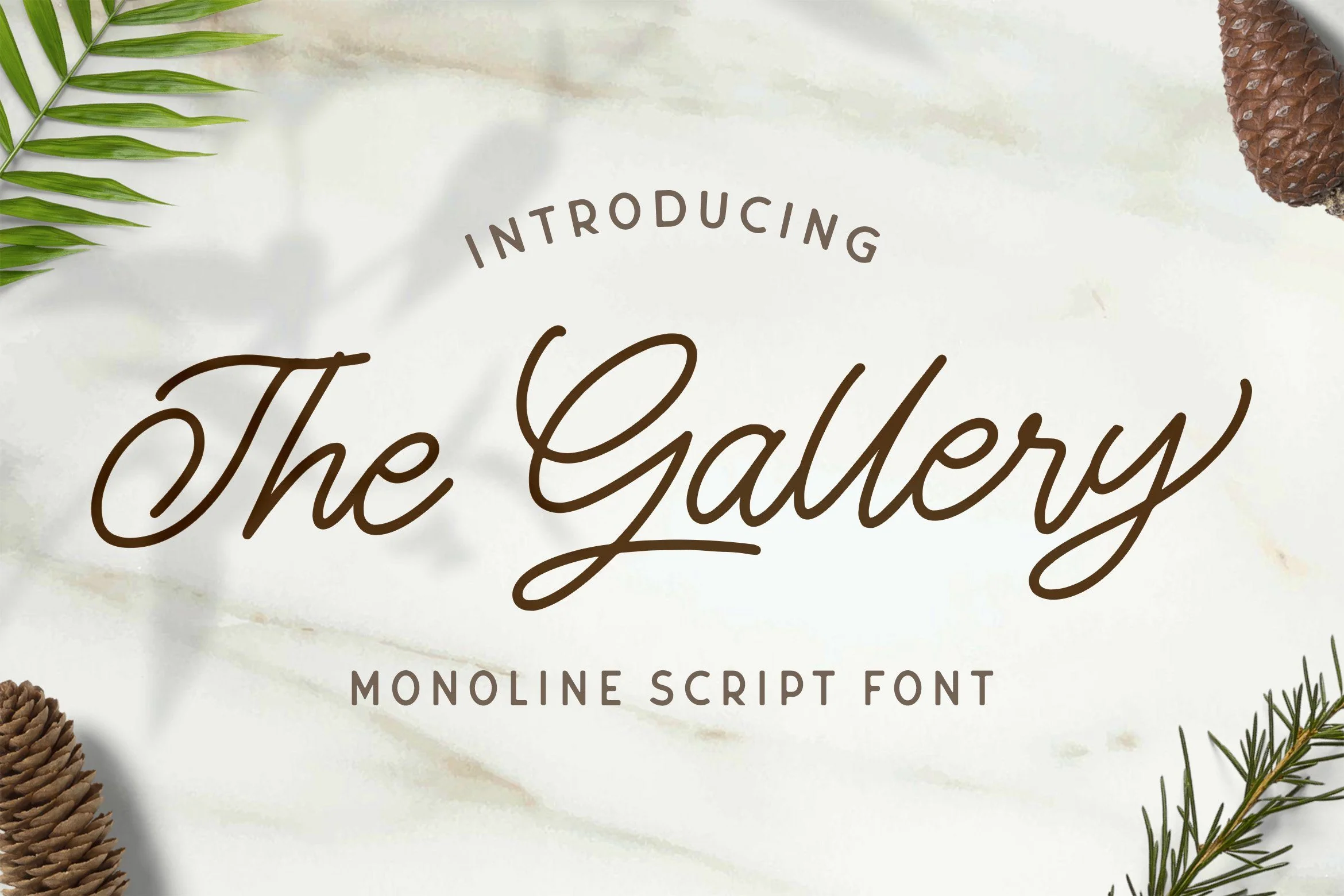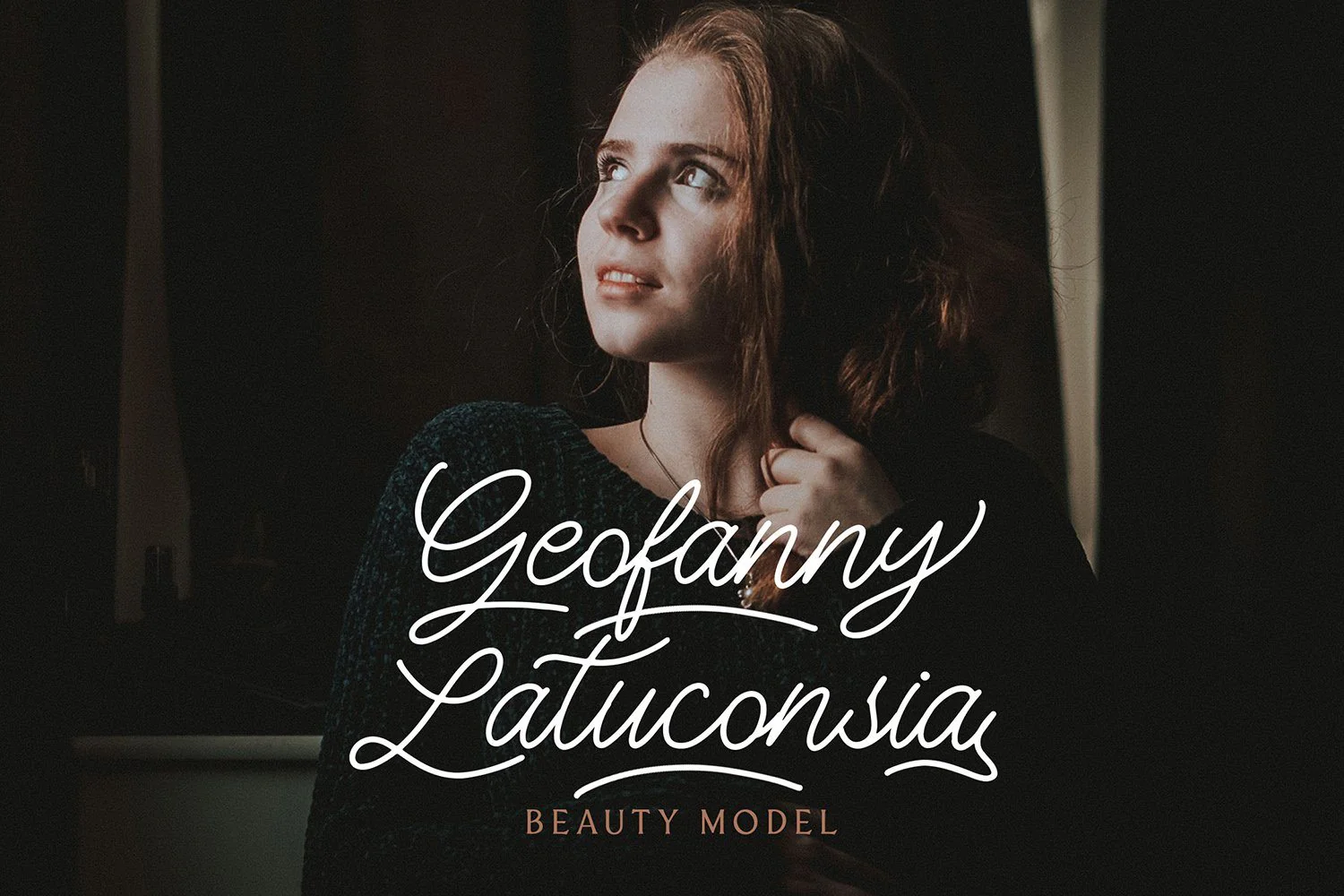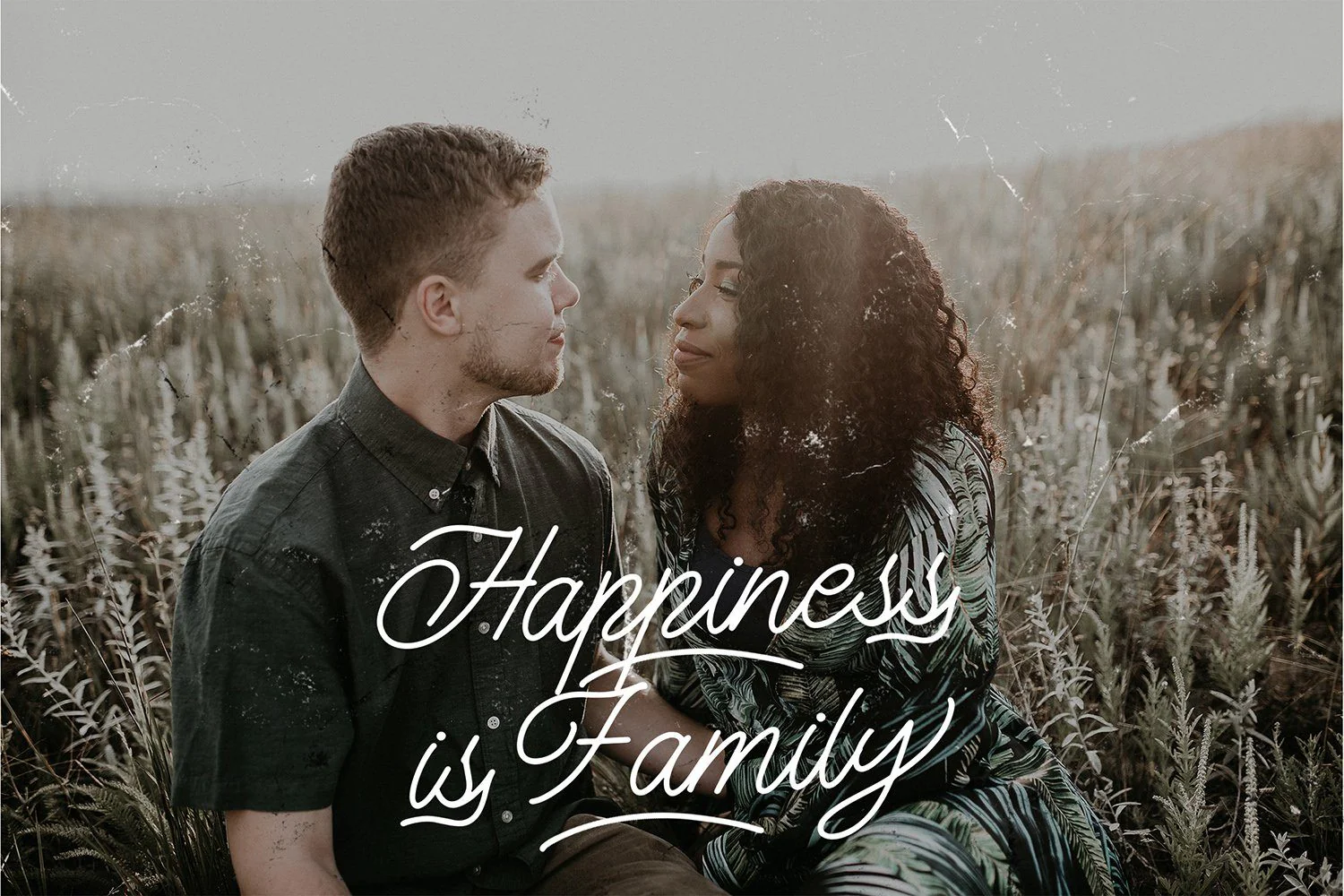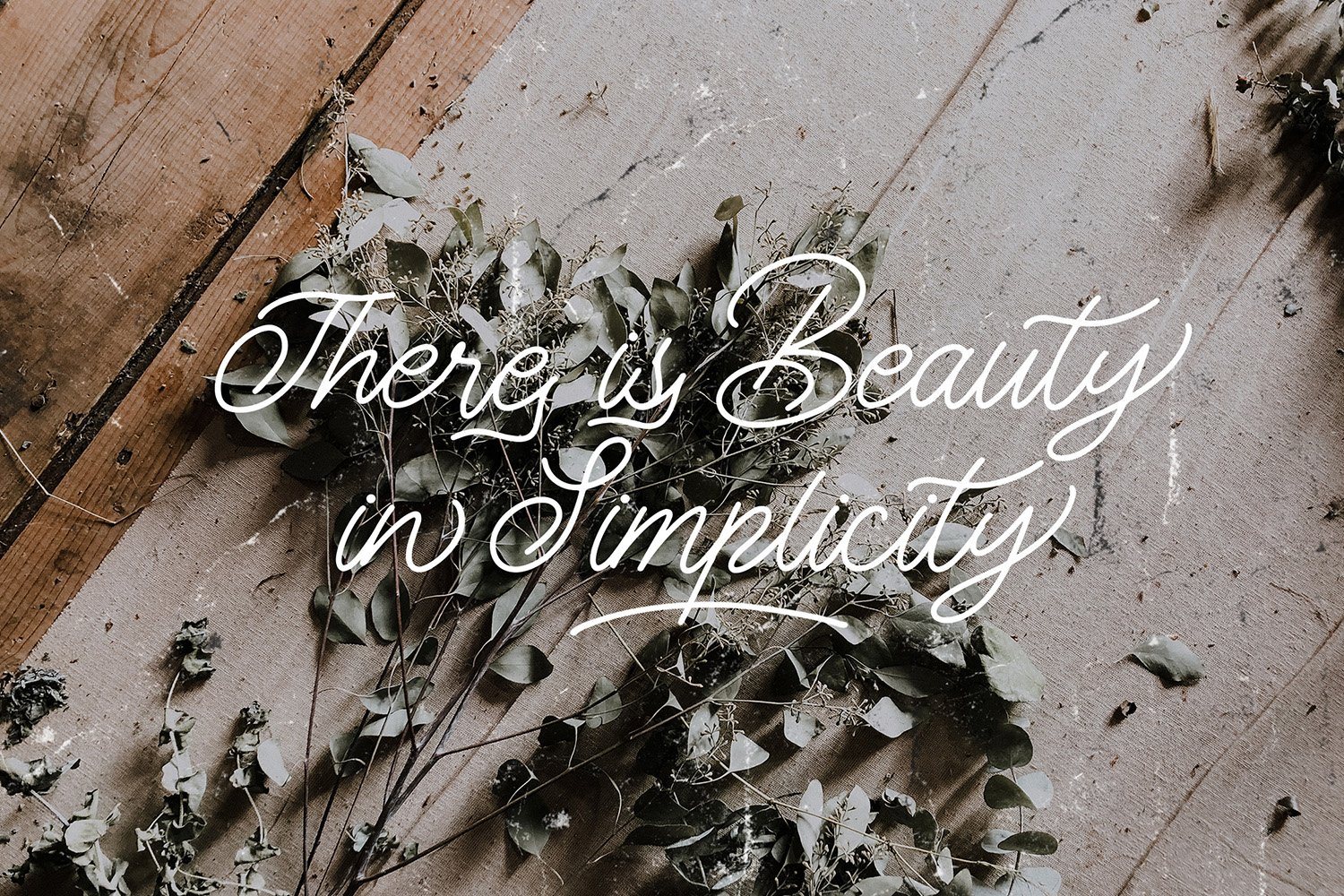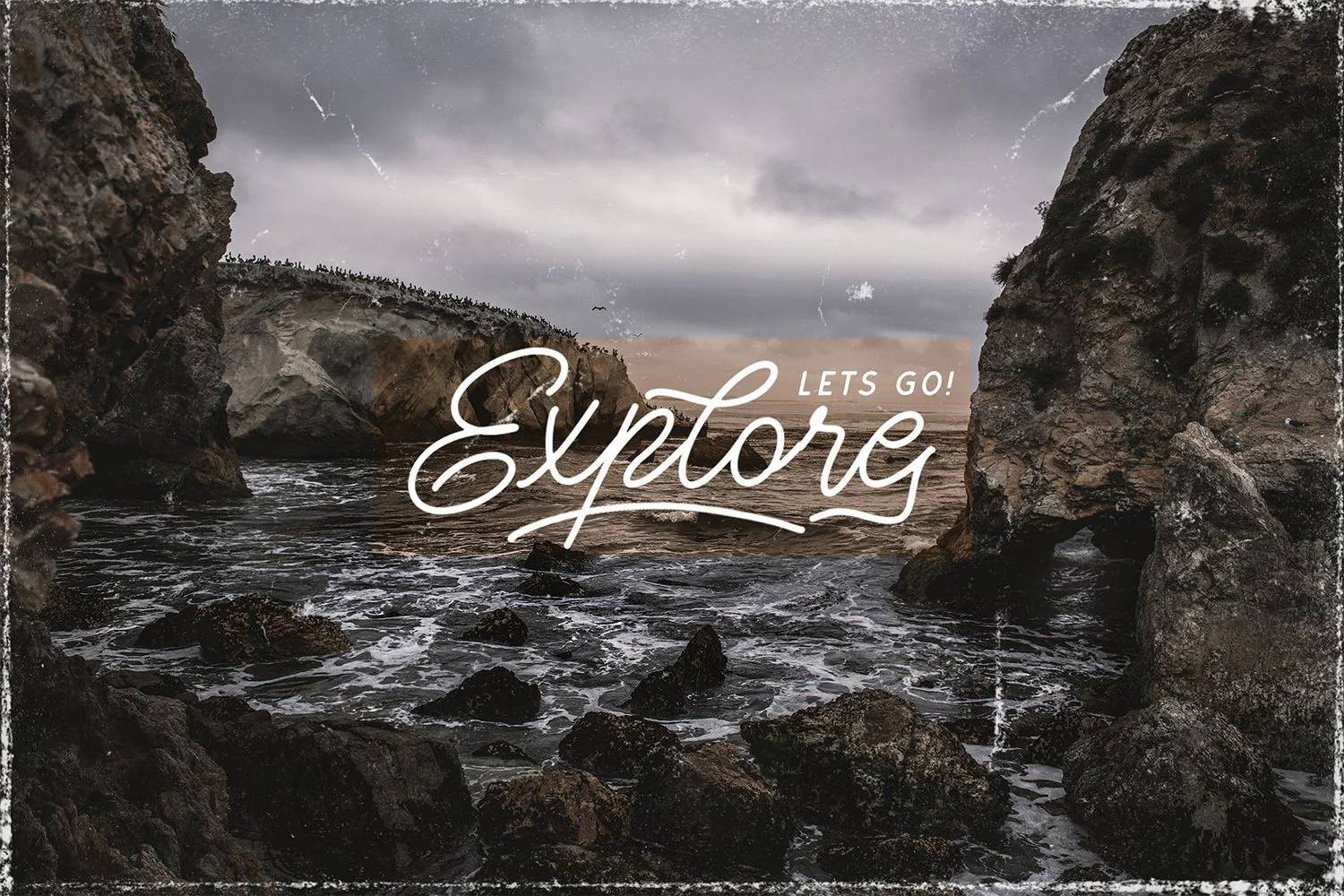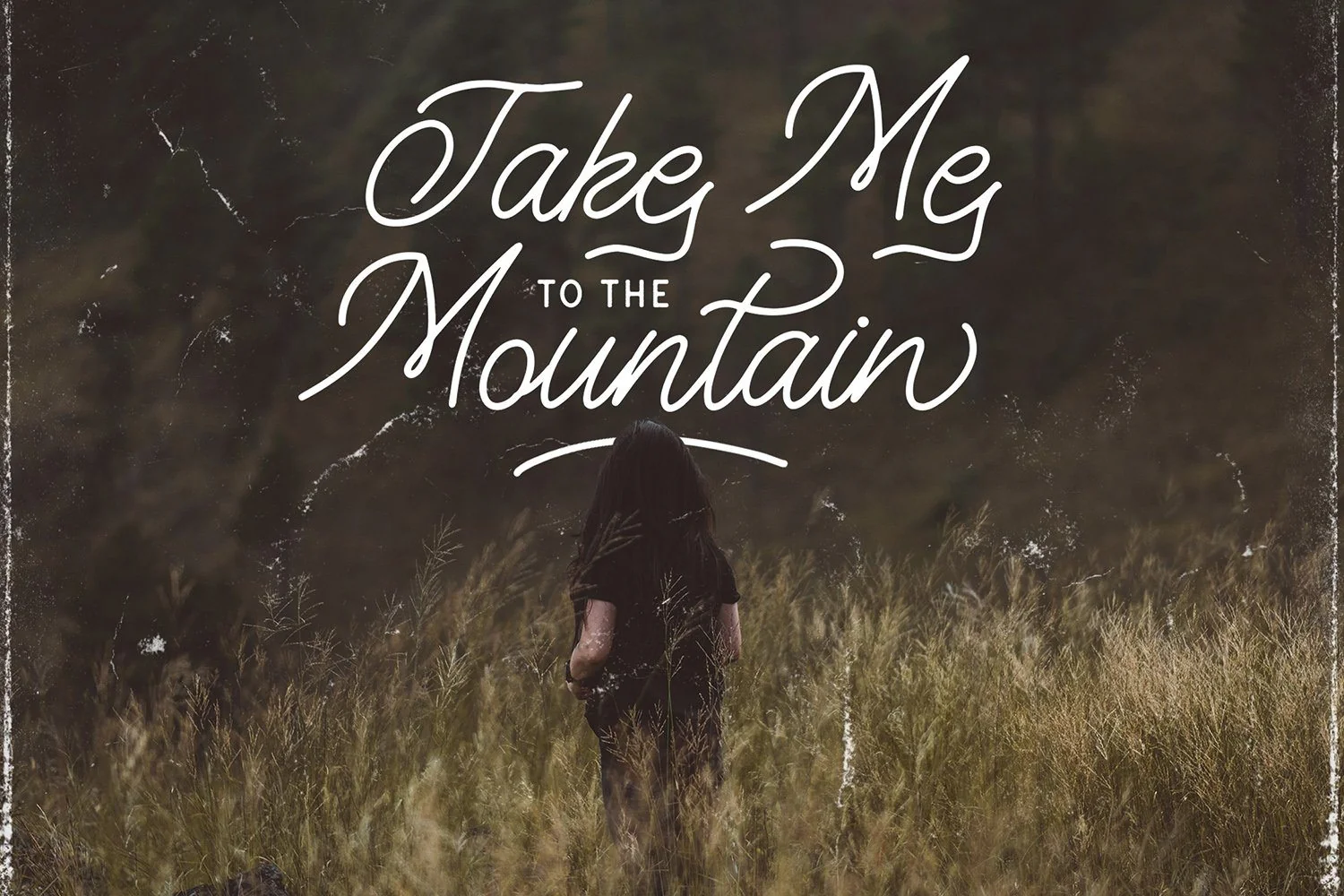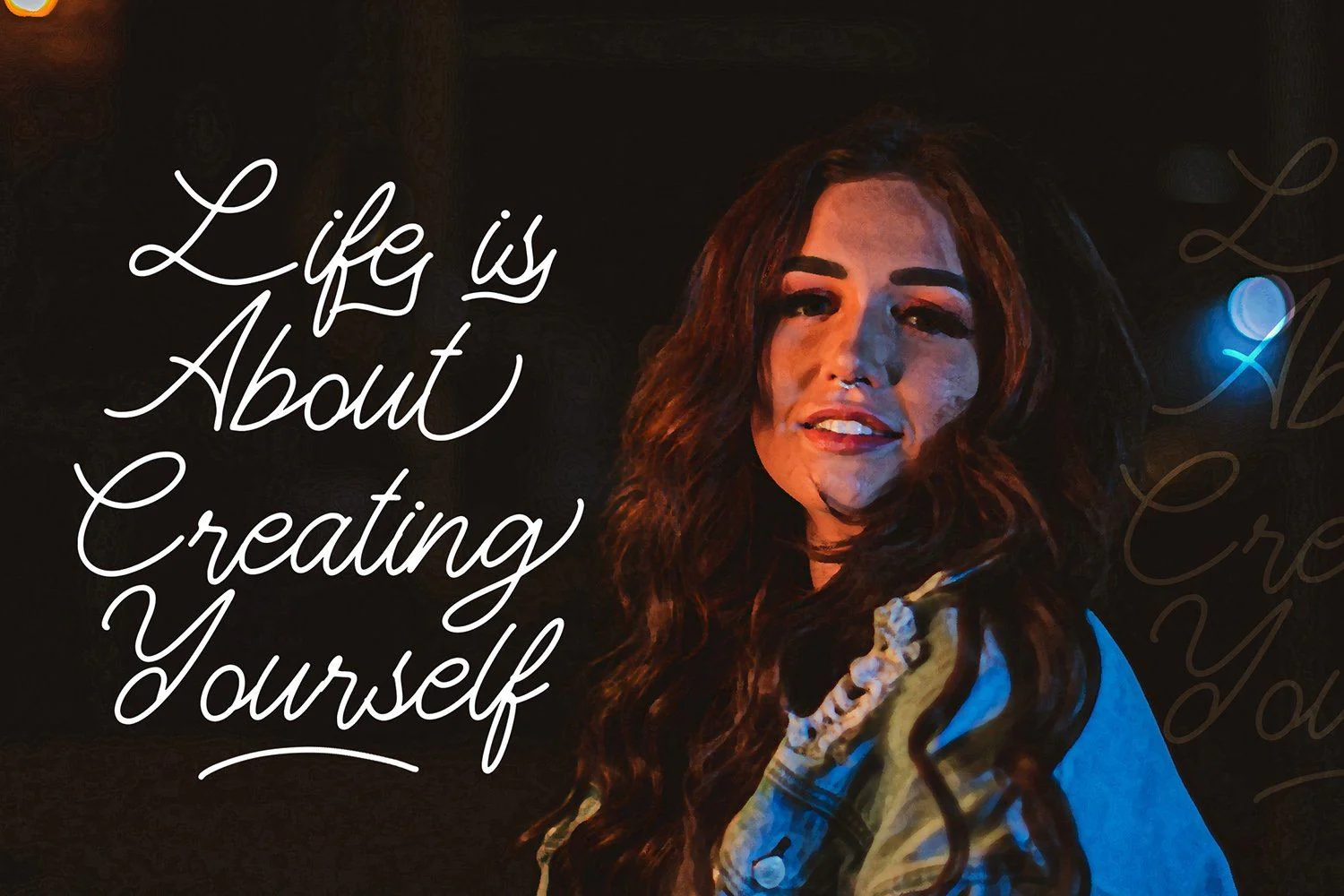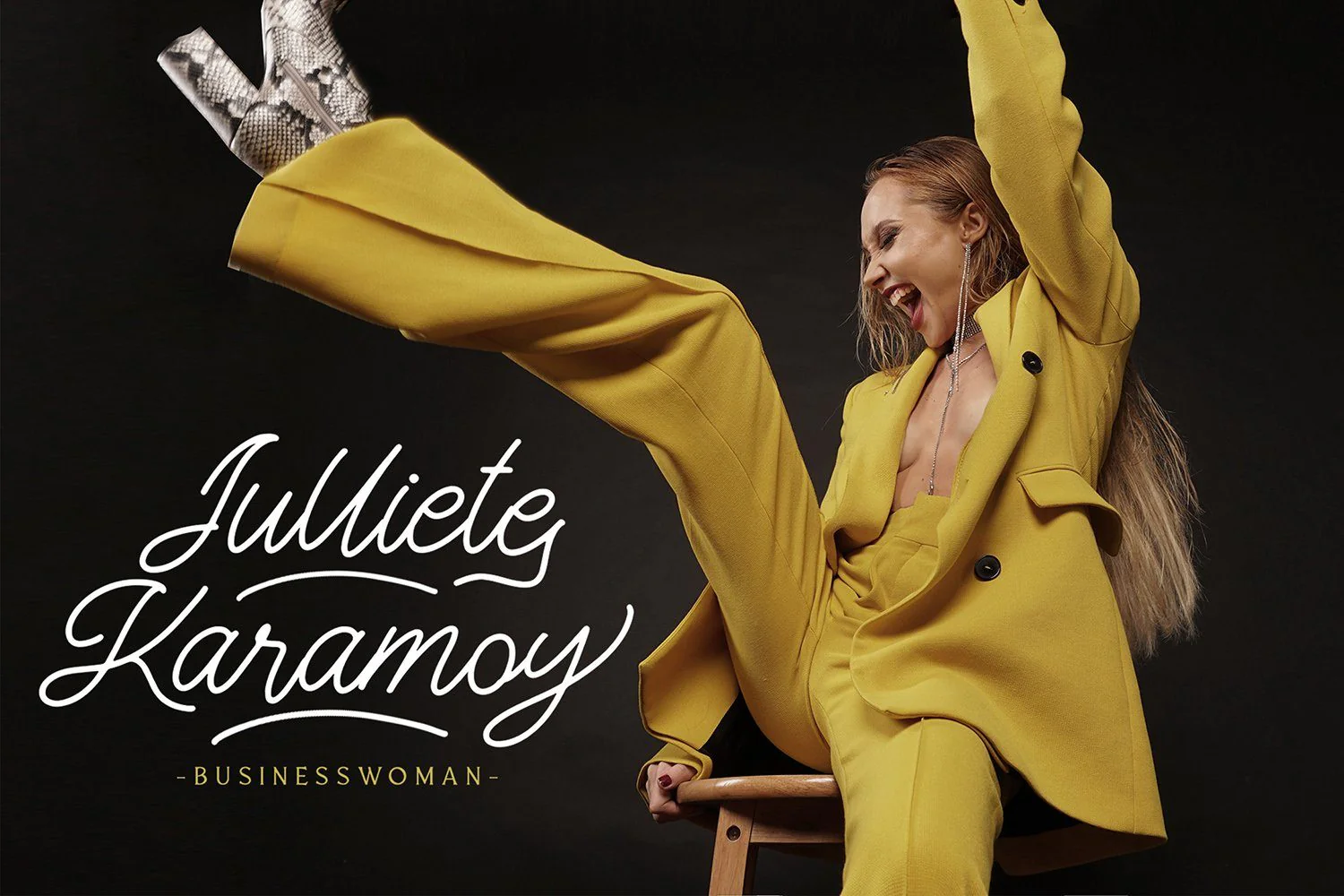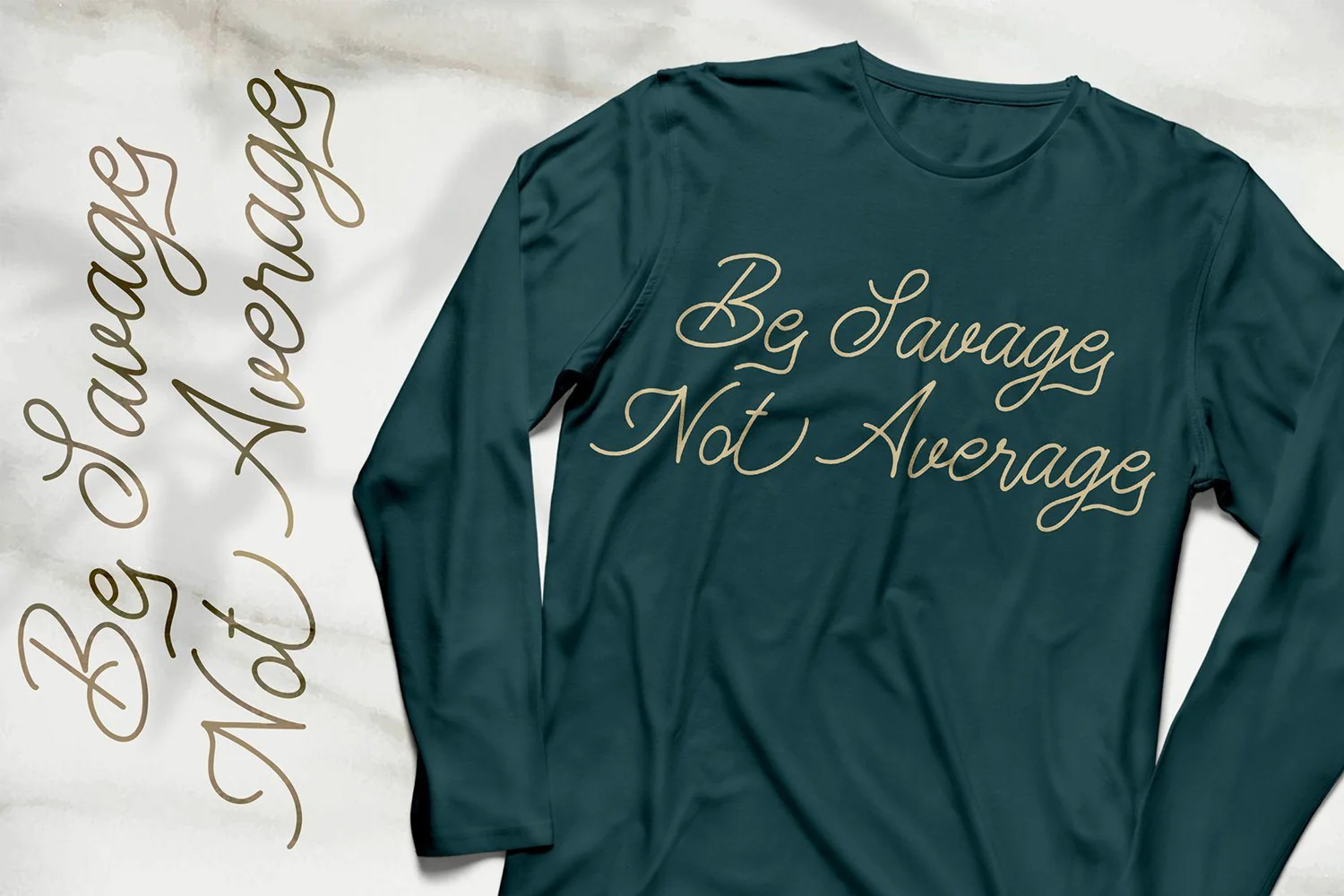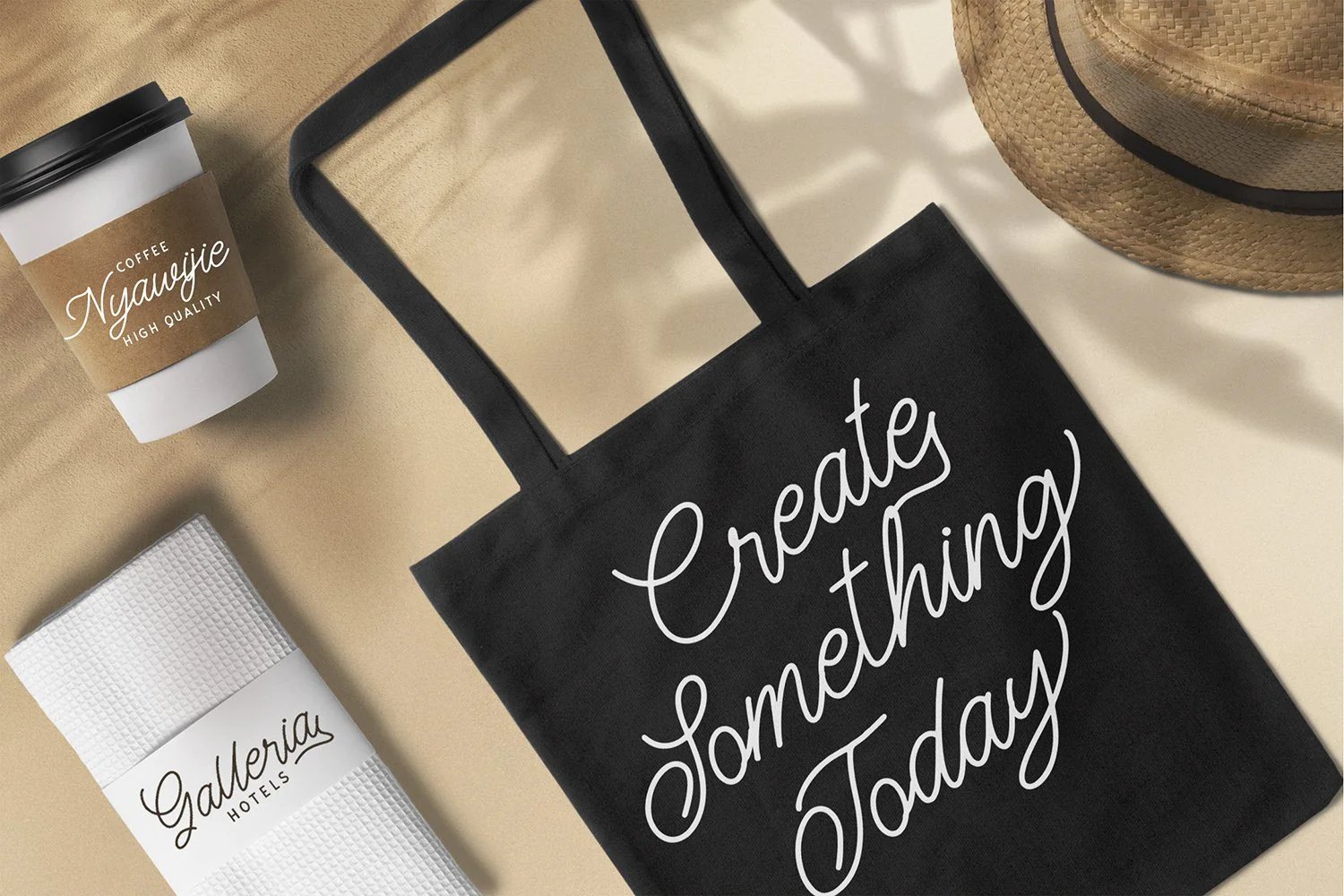
The Gallery - Monoline Script Font
Introducing The Gallery - Monoline Script Font
The Gallery is a Monoline Script Font with Retro Vintage Style. This font is perfect for fashion brand, apparel, shoes company, wedding invitation, business card, logo brand, clothing, and also business brand name like barber shop or taylor.
This Font Template contains Classy, Elegant, Creative, and has a Unique Concept.
Introducing The Gallery - Monoline Script Font
The Gallery is a Monoline Script Font with Retro Vintage Style. This font is perfect for fashion brand, apparel, shoes company, wedding invitation, business card, logo brand, clothing, and also business brand name like barber shop or taylor.
This Font Template contains Classy, Elegant, Creative, and has a Unique Concept.